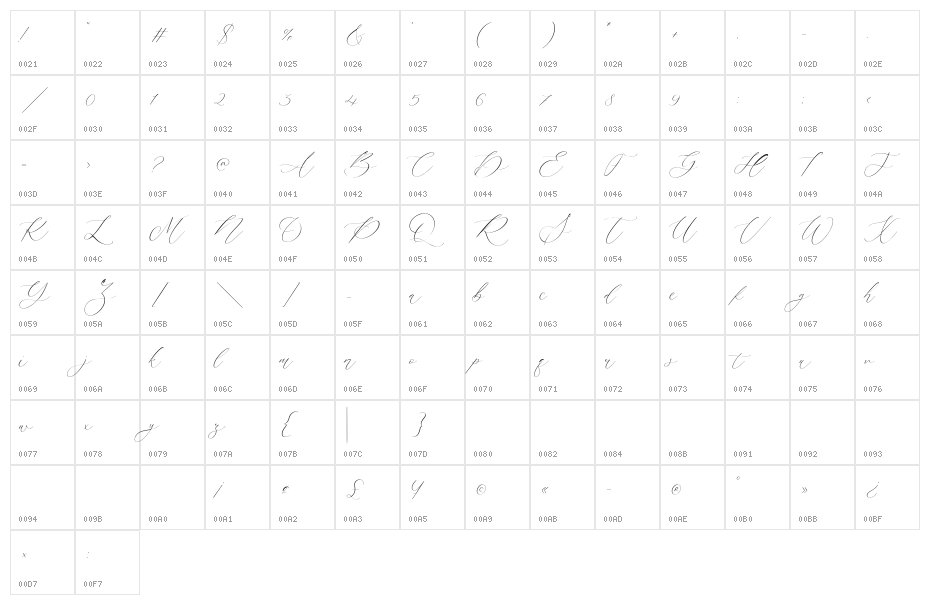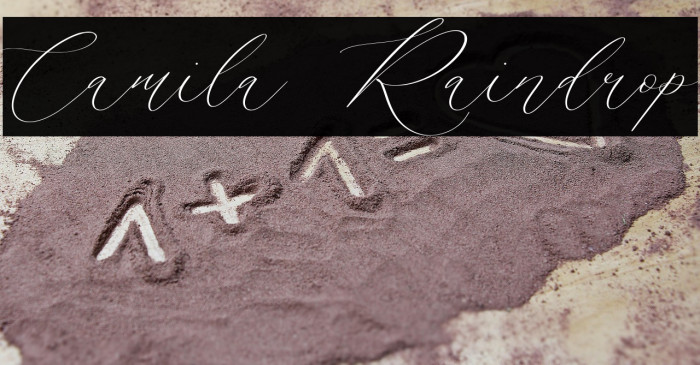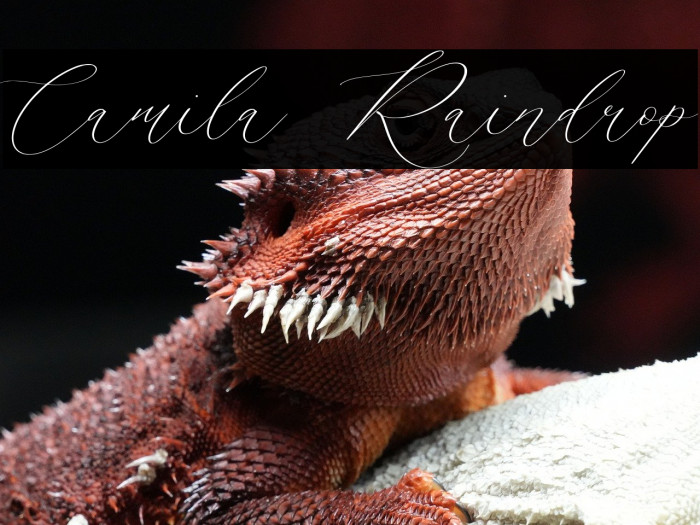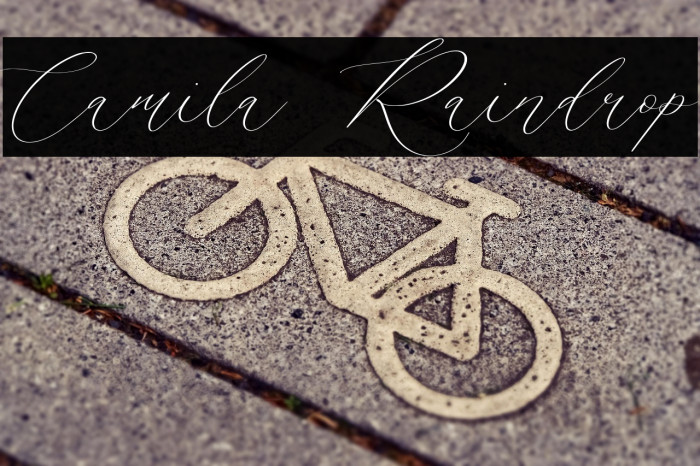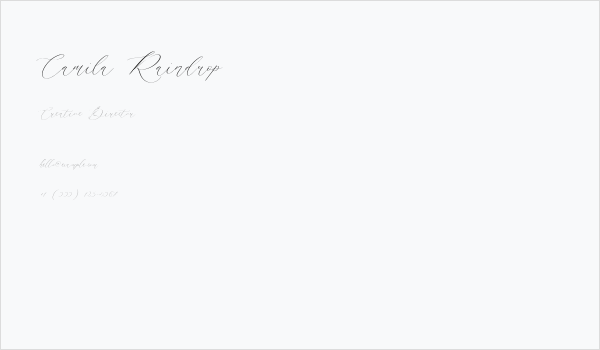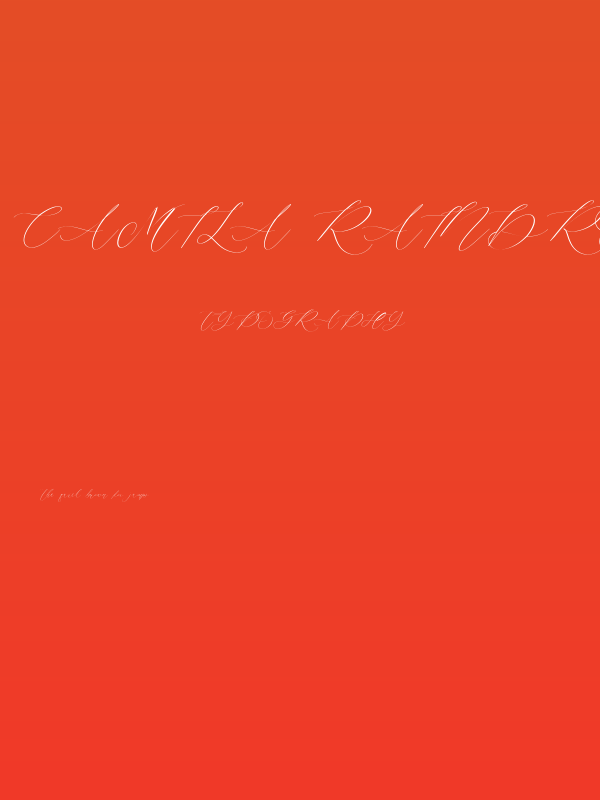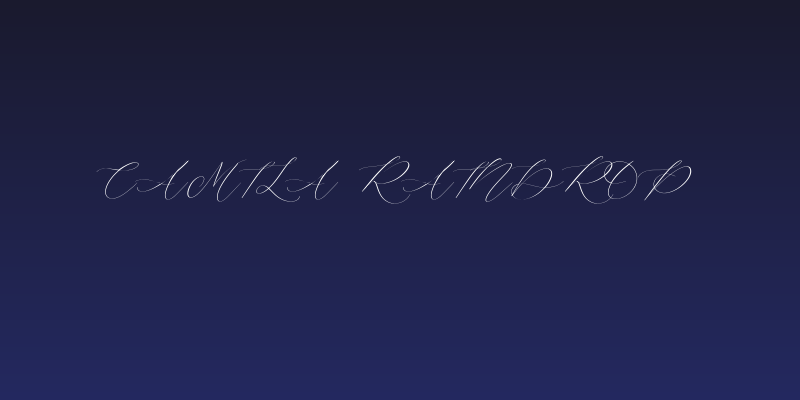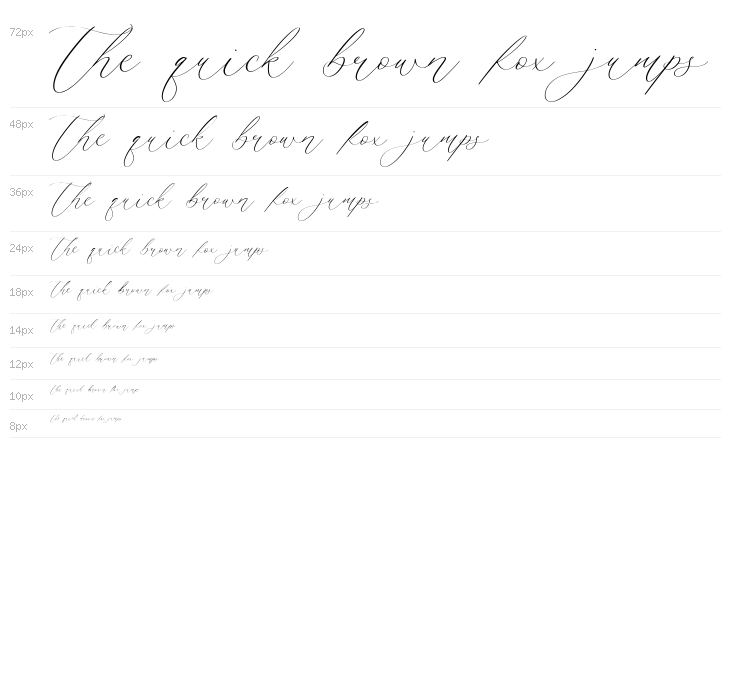
Camila Raindrop Font
Camila Raindrop Description
This elegant script font features a fluid, cursive style with delicate, flowing lines that mimic the graceful strokes of calligraphy. The characters are interconnected, creating a seamless and harmonious appearance. Its thin strokes and high contrast between thick and thin lines give it a sophisticated and refined look. The font's airy and light design makes it ideal for adding a touch of elegance and sophistication to any project. The uppercase letters are slightly more ornate, while the lowercase letters maintain a consistent flow, enhancing readability. The numerals and special characters are designed to match the overall aesthetic, ensuring a cohesive look across all text elements.
| Proposed Projects | Ideal for wedding invitations, elegant branding, greeting cards, and upscale packaging. |